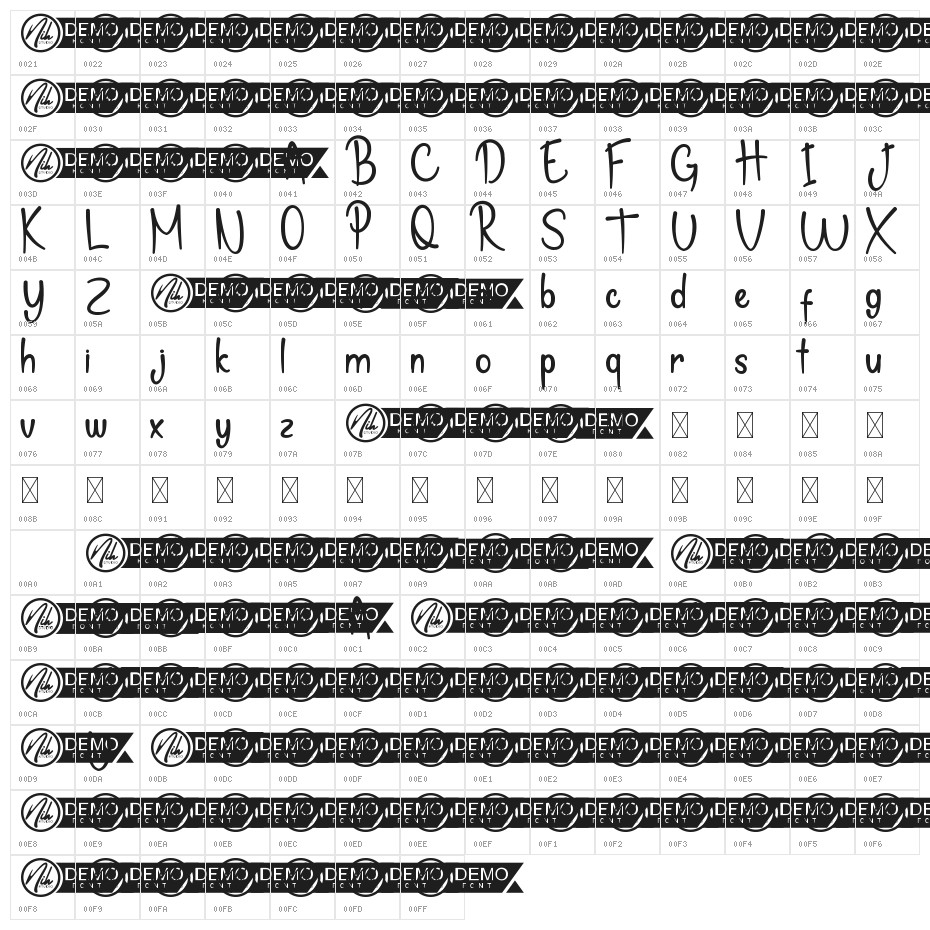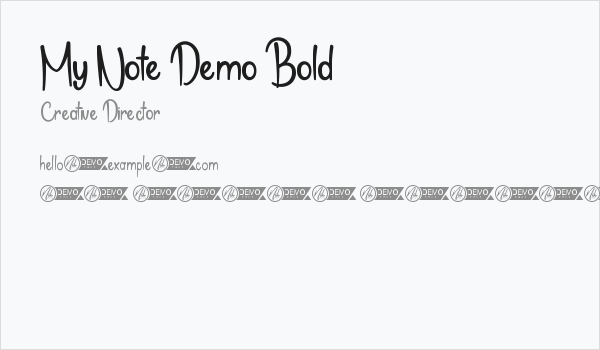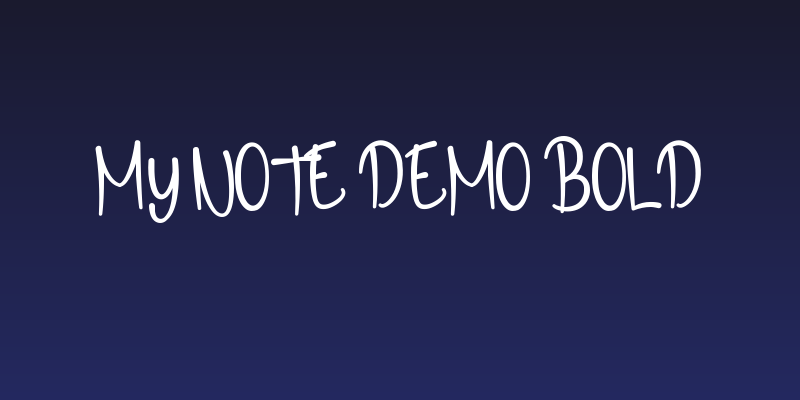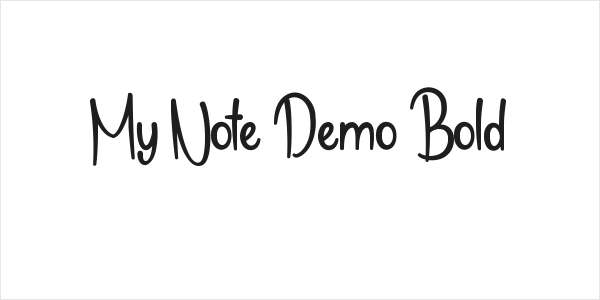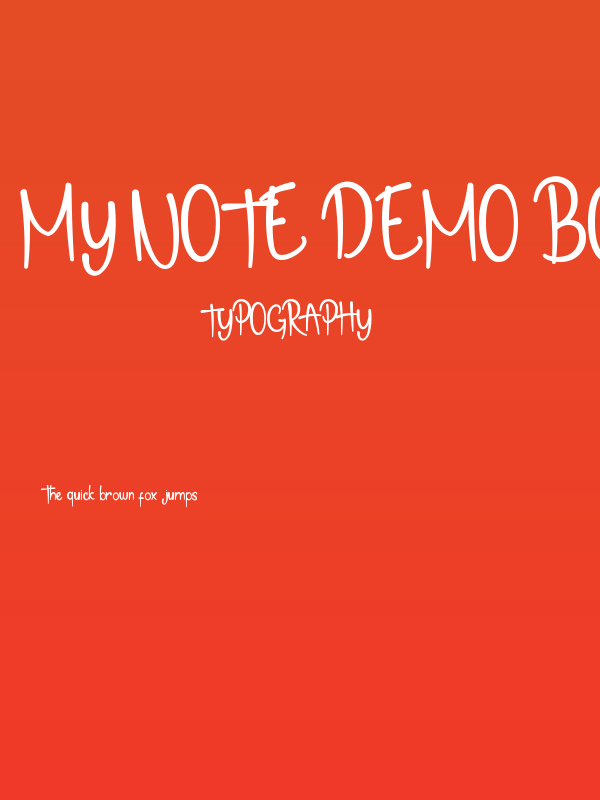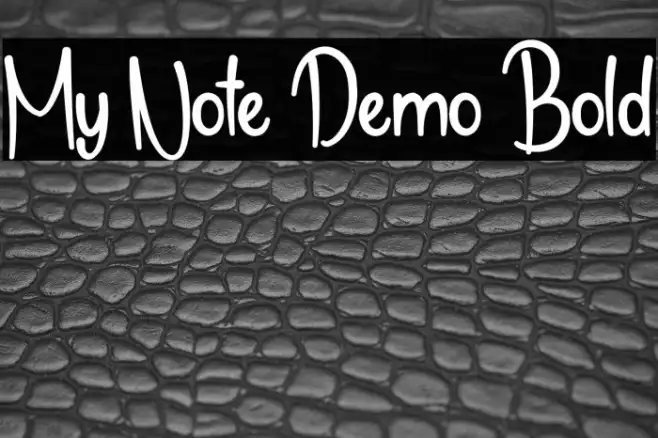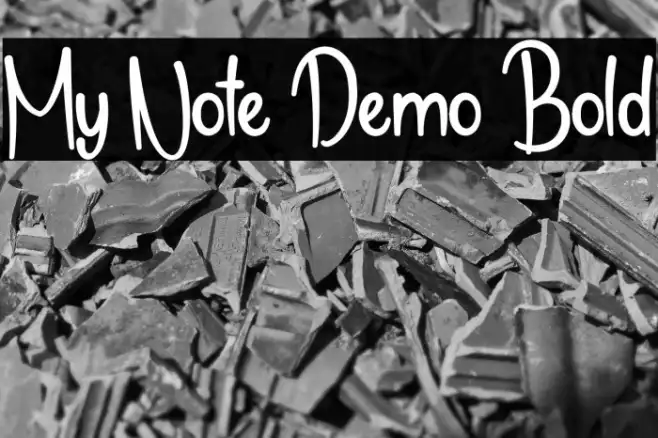
My Note Demo Bold Font
My Note Demo Bold Description
This font exhibits a playful and casual handwritten style, characterized by its smooth, flowing curves and slightly irregular letterforms. The uppercase letters are tall and slender, while the lowercase letters maintain a consistent height, contributing to a harmonious appearance. The strokes are bold, yet maintain a sense of lightness, making it suitable for informal and friendly designs. The font's overall aesthetic is approachable and lively, with a touch of whimsy that can add personality to any project. The spacing between characters is balanced, ensuring readability while preserving the font's unique style.
| Proposed Projects | Ideal for greeting cards, children's books, playful branding, and social media graphics. |